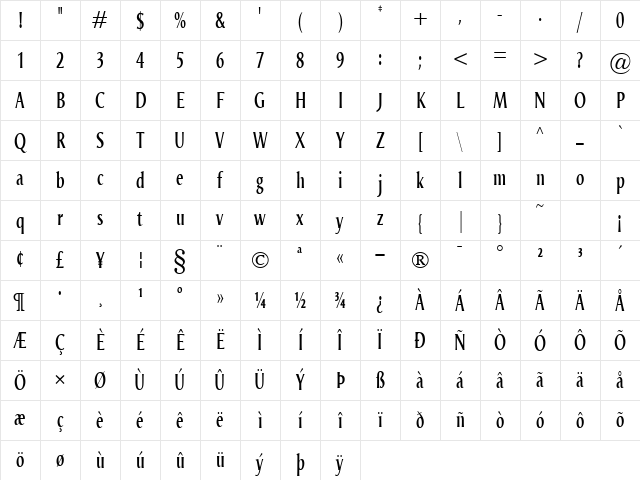
Odense Compr Regular Free Font
Odense Compr Regular
Design Context for Odense Compr
Odense Compr is a composed and adaptable typeface that performs quietly and consistently across a wide range of design contexts.